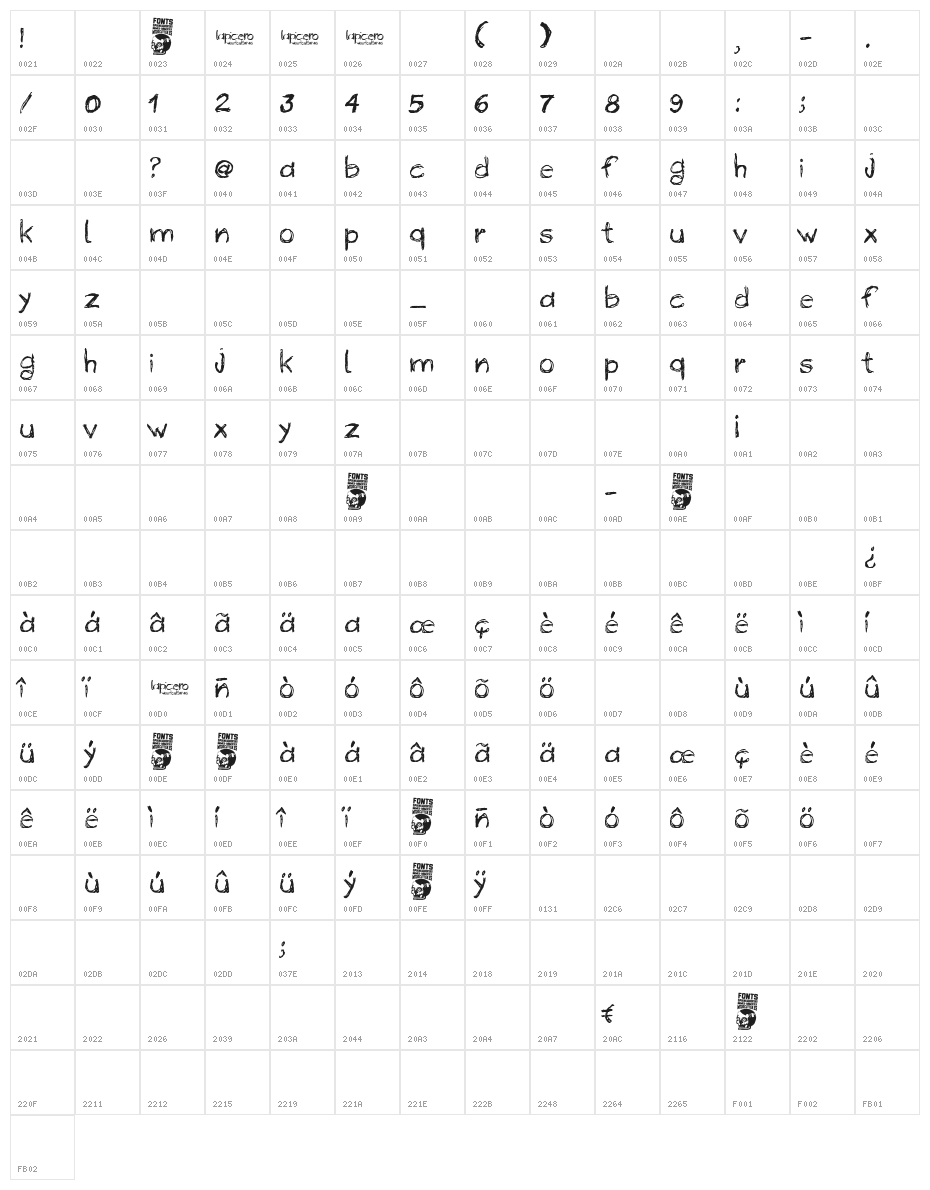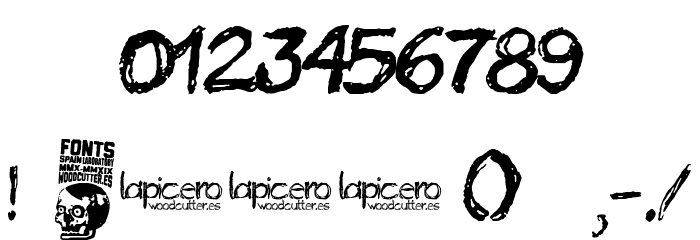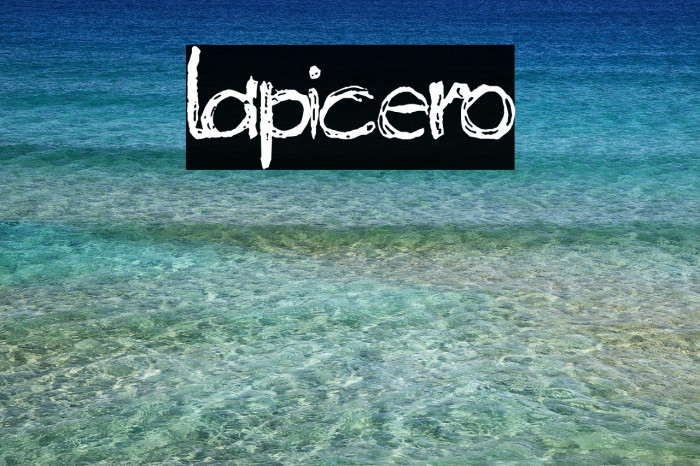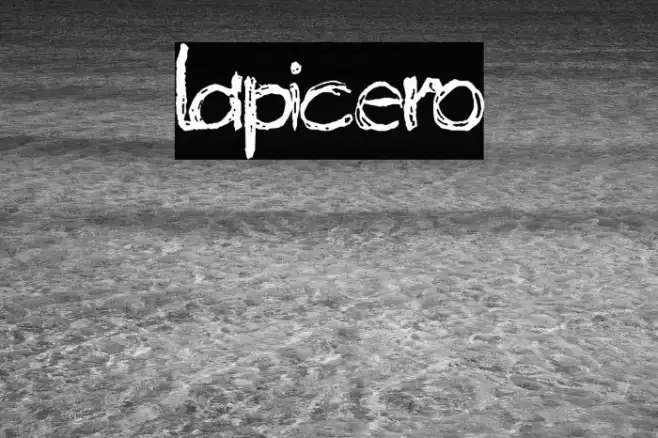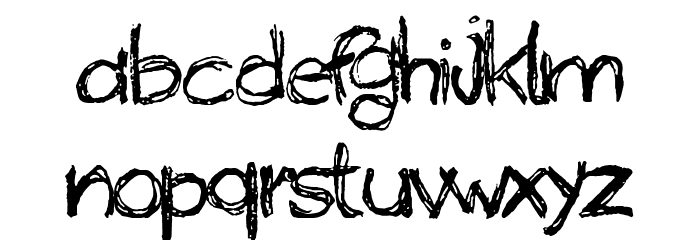
Lapicero Font
Lapicero Description
This font exudes a raw, hand-drawn aesthetic with a textured, sketch-like appearance. The characters are irregular and dynamic, giving off a casual and artistic vibe. Each letter appears as if it was drawn with a thick marker or crayon, featuring uneven strokes and a slightly distressed look. The font maintains a consistent baseline, yet the varying heights and widths of the letters add to its playful and informal nature. This style is reminiscent of graffiti or street art, making it stand out with its bold and expressive character.
| Overall Style | Artistic, Casual, Playful |
| Proposed Projects | Ideal for creative projects such as posters, album covers, or branding for artistic ventures. It can also be used in digital art, social media graphics, or any design that requires a bold, informal touch. |